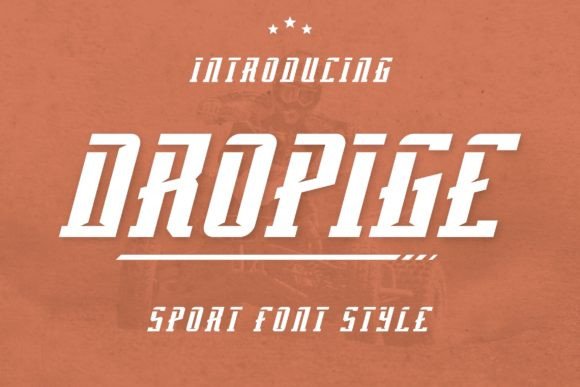
Dive into the world of Dropige Font, a striking display font that exudes boldness and authenticity. Designed by the talented Supriyatin, this font is an artistic masterpiece that transcends ordinary typography, transforming your designs into captivating visual expressions.
Unleash your creativity and watch your projects come alive with Dropige's distinct character. Whether you're a graphic designer, a branding expert, or a creative entrepreneur, this font is your ultimate tool for creating logos that leave a lasting impression, t-shirt designs that speak volumes, and creative products that ignite inspiration.
With Dropige Font, you have the power to transform ordinary words into extraordinary statements. Its bold lines and authentic charm add depth and personality to your designs, making them stand out from the crowd. Embrace the art of self-expression and let your creativity soar as you craft designs that resonate with your audience.
Beyond its aesthetic appeal, Dropige Font is a versatile workhorse that adapts seamlessly to a wide range of projects. It's the perfect choice for creating eye-catching headlines, captivating social media posts, and stunning website designs. Its bold presence commands attention, while its authentic charm adds a touch of sophistication that elevates your designs to new heights.
Join the creative revolution and embrace the power of Dropige Font. Let your imagination run wild as you create designs that captivate and inspire. With Dropige as your font of choice, you'll leave an indelible mark on the world, one design at a time.